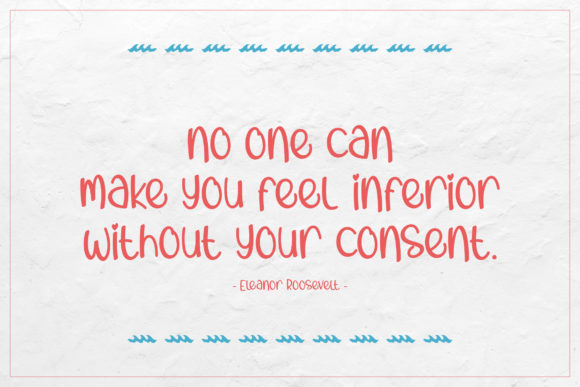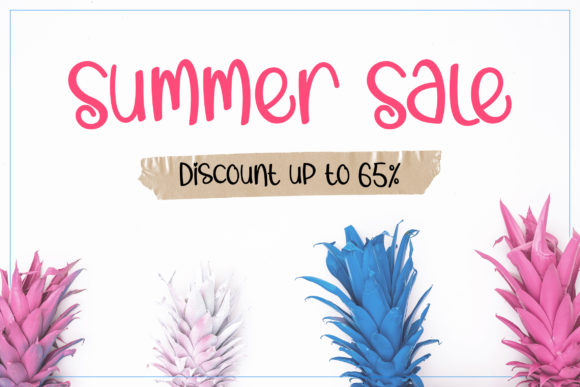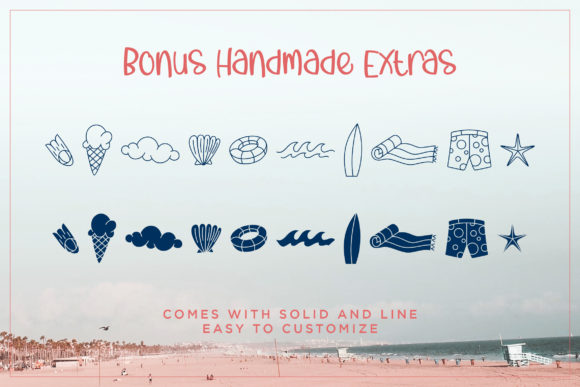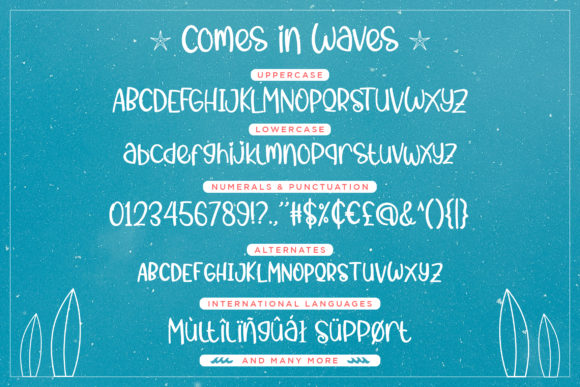
Comes in Waves Font
About Comes in Waves Font
Comes In Waves is a cute handwritten font.Get inspired by its authentic feel and use it to create beautiful stationary art, eye-catching social media posts, and cute greeting cards.